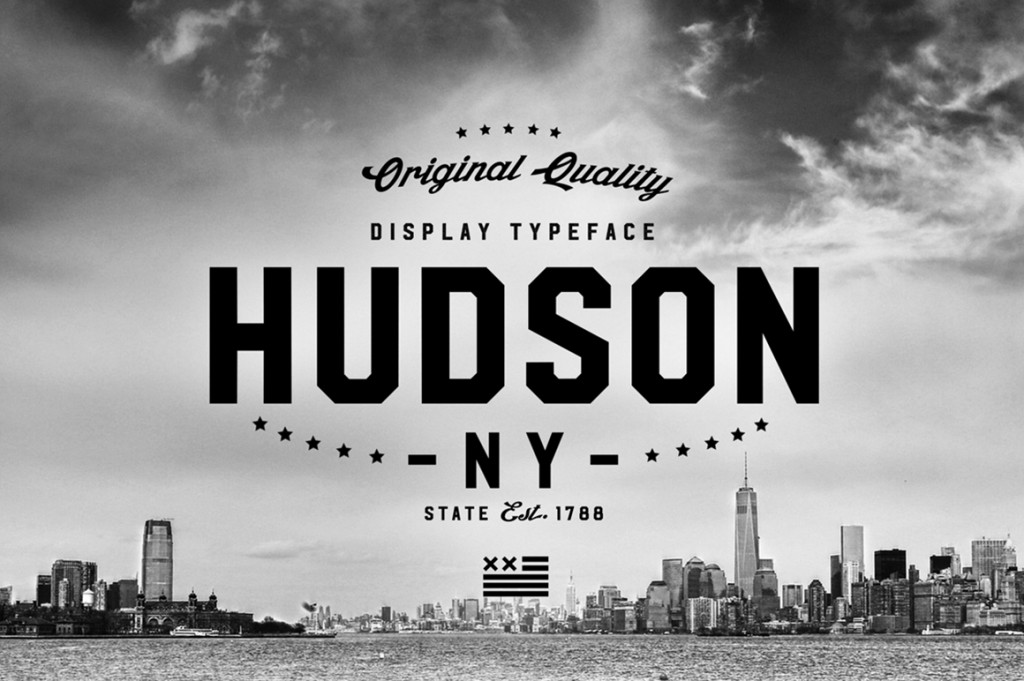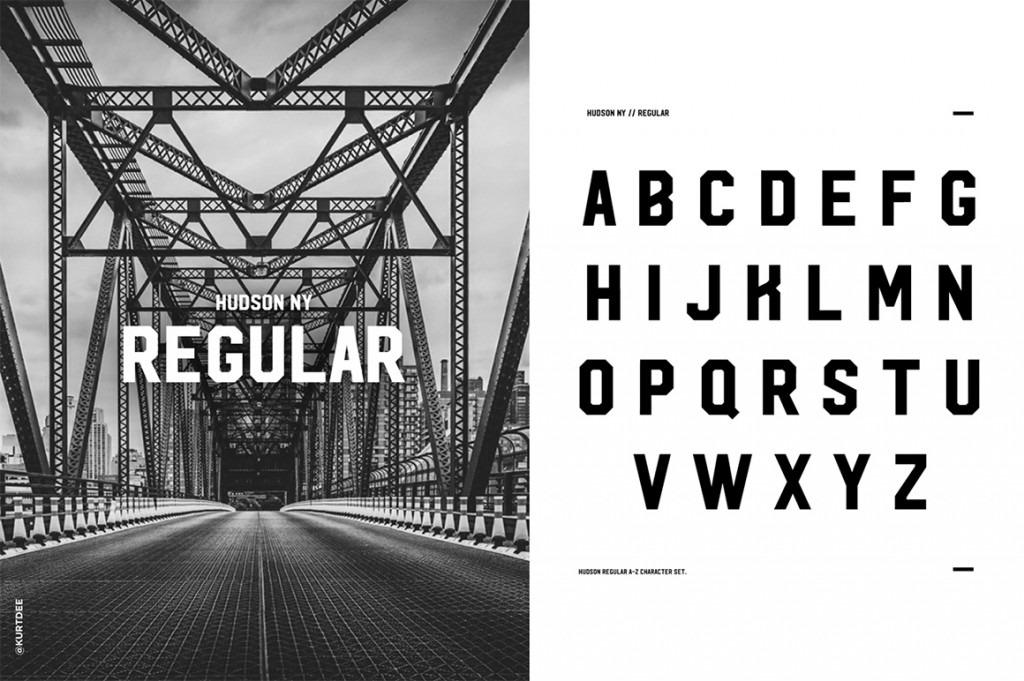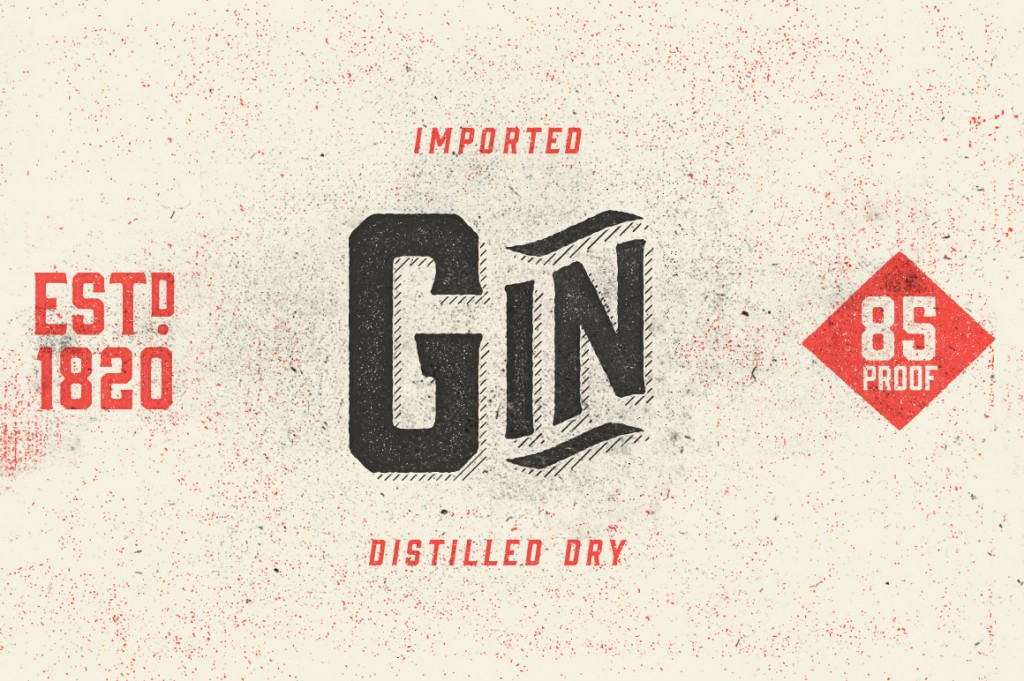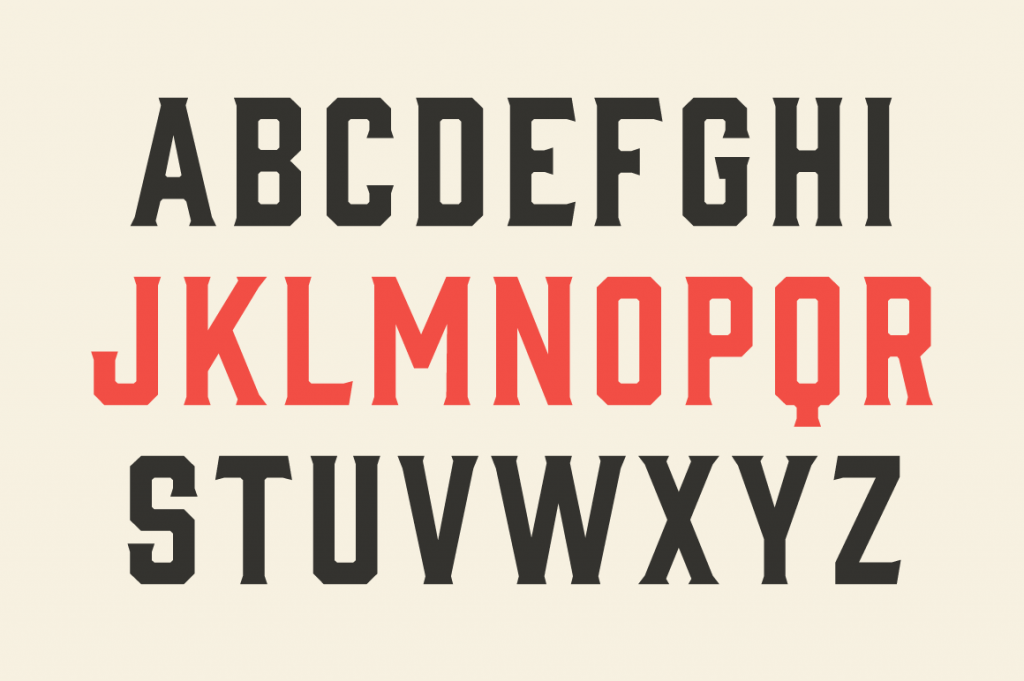
Hudson NY
Hudson NY is a display font that gives you strong and bold typography with three different styles that make up the family, a regular, serif and slab serif. Hudson NY is an adaptation and progression of Roper Font, and like Roper font it comes in regular and a press versions, giving the user some cool options when creating artwork. The golden thread that ties this family together is its American sports and college styling, it gives Hudson NY an authentic look but at the same time there is a modern approach to the character set.
Malarkey
Meet Malarkey, a hand painted font with bounce and quirk. Malarkey was inspired by hand brushed, modern calligraphy and features messy, organic letter forms. Swash lovers, eat your heart out. Long, looped, swirl, and short swash fonts are included to give your projects a convincing, hand brushed calligraphy look.
Gin
Like a brother to the Bourbon family (http://crtv.mk/qDwg), Gin is distilled from similar letterforms, but condensed less. This vintage display typeface was inspired by the likes of old serifs and classic bottles of whiskey and gin. The full family includes Gin’s 8 styles: Regular, Oblique, Lines, Lines Oblique, Rough, Rough Oblique, Round, and Round Oblique (All .OTF files). Features: Stylistic Alternates and Multiple Language Support.